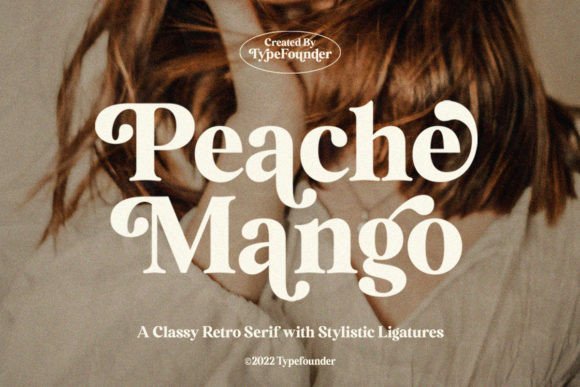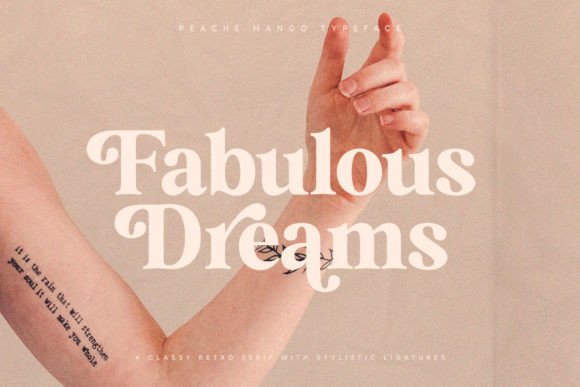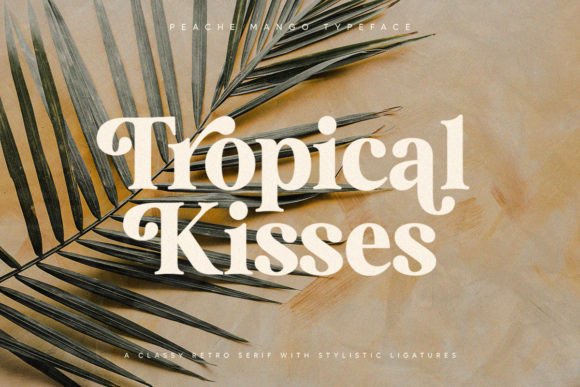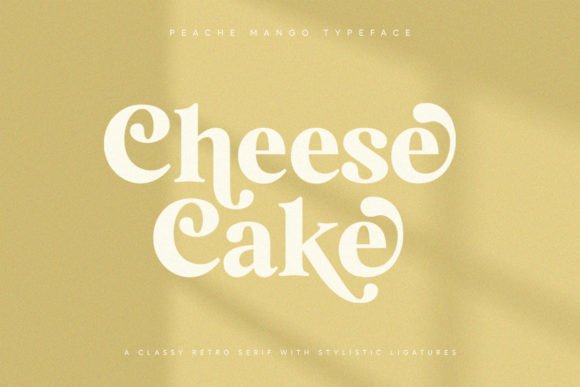
Peache Mango Font
About the Peache Mango Font
The Peache Mango Font offers a perfect balance of form and function for your design needs. Peache Mango is a classy retro serif typeface that looks incredible in both large and small settings. It is the best choice for creating eye-catching logos, branding, and quotes. Every letter has a unique and beautiful touch, which will make your design come alive!
Peache Mango’s retro-serif design excels in headlines, short-form text, and branding applications where a touch of vintage elegance is desired. It works particularly well for logos, short quotes, and packaging design, adding a sophisticated yet approachable feel. However, its intricate details make it less suitable for body text or UI elements requiring high readability at smaller sizes.
Consider pairing Peache Mango with a clean sans-serif like Open Sans for a balanced contrast, or a geometric sans-serif such as Roboto for a more modern feel. For a touch of playful contrast, a light script font could also work well, although careful consideration should be given to maintaining readability.
Peache Mango possesses a refined, yet friendly personality. It’s ideal for brands aiming for a nostalgic yet contemporary image—think vintage clothing boutiques, artisanal food companies, or boutique hotels. The font’s subtle curves and classic serifs convey trustworthiness and quality without appearing overly formal.
Peache Mango Font Usage Examples
Peache Mango Font Example